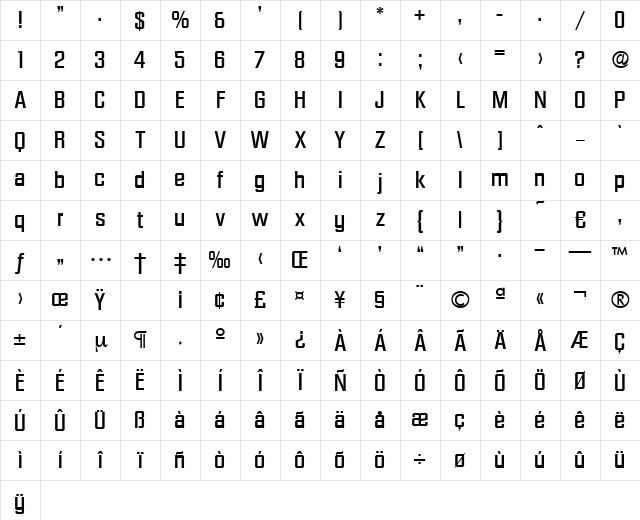
Diamante-Medium Regular Free Font
Diamante-Medium Regular
Design Context for Diamante-Medium
Diamante-Medium is a composed and adaptable typeface that performs quietly and consistently across a wide range of design contexts.